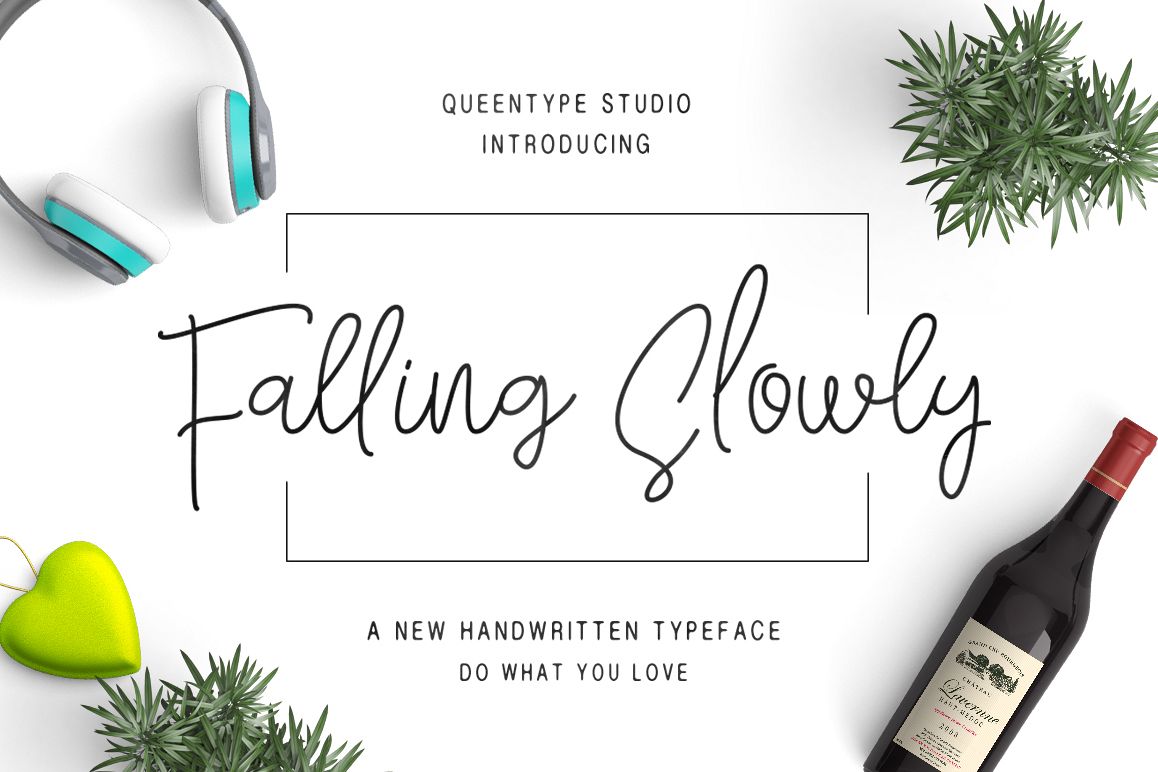
Falling Slowly
Introducing :  Falling-Slowly Typeface !!** --- ??
Great for Apparel Brand, Logos, printed quotes, invitations, image overlays, greeting cards, product packaging, text headers, any greeting cards, book cover, Painting design style, or any design that needs natural and personal touch & whatever else your imagination holds! . Mix and match the alternate characters to add an attractive message to your design.
nice smooth lines, easy to use in the Cricut program~ exact font I was actually looking for~
Love this casual handwritten font. Great alternates, too.